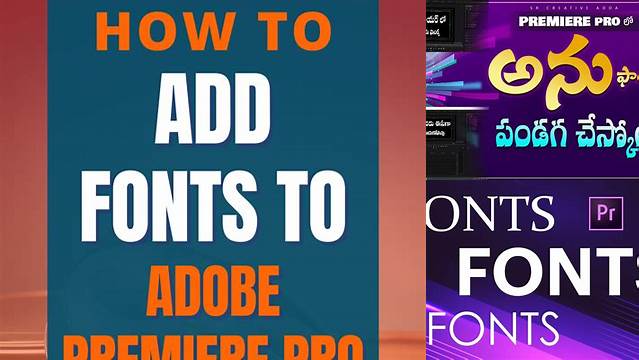
Premiere Pro Fonts: Choose The Best!
Choosing the right premiere pro fonts can dramatically elevate your video projects. Fonts are more than just text; they're a crucial element of visual storytelling, setting the tone and enhancing the overall aesthetic. In this comprehensive guide, we'll dive deep into the world of fonts for Premiere Pro, exploring everything from selecting the perfect typeface to troubleshooting common font issues. Let’s get started, guys!
1. Understanding the Importance of Font Choice in Premiere Pro
Premiere pro fonts play a pivotal role in conveying the message and setting the mood of your video. A well-chosen font can enhance readability, create visual interest, and reinforce your brand identity. Conversely, a poorly selected font can distract viewers, undermine your message, and make your video look unprofessional. Think about it – would you use Comic Sans for a serious documentary? Probably not! Different fonts evoke different emotions and associations. Serif fonts, like Times New Roman, often convey a sense of tradition and authority, while sans-serif fonts, like Arial or Helvetica, tend to feel more modern and clean. Script fonts can add a touch of elegance or playfulness, but they should be used sparingly to maintain readability. The key is to choose a font that aligns with the overall style and purpose of your video. For example, a fast-paced action sequence might benefit from a bold, dynamic font, while a heartfelt interview might call for a more subtle and understated typeface. Don't underestimate the power of typography – it's a crucial element in creating a visually compelling and engaging video.
2. Top Font Categories for Video Editing
When it comes to video editing, certain font categories tend to work better than others. Let's explore some of the most popular and effective options. First, we have serif fonts. These fonts, characterized by their small decorative strokes (serifs) at the end of each letter, often convey a sense of formality, tradition, and authority. They're a great choice for documentaries, corporate videos, or any project that requires a touch of sophistication. Next up are sans-serif fonts. These fonts, lacking the serifs, offer a cleaner, more modern look. They're highly readable and versatile, making them suitable for a wide range of video projects, from explainer videos to social media content. Script fonts, resembling handwriting, can add a touch of elegance, personality, or playfulness to your videos. However, they should be used sparingly, as they can be difficult to read in large blocks of text. Consider using them for titles, subtitles or short, impactful messages. Finally, display fonts are designed to grab attention and make a statement. These fonts often feature unique and eye-catching designs, making them ideal for titles, logos, or other prominent elements in your video. Just be careful not to overuse them, as they can be overwhelming if applied excessively.
5. Best Practices for Using Fonts in Video Projects
Using premiere pro fonts effectively requires more than just choosing a visually appealing typeface. It's essential to follow some best practices to ensure that your fonts enhance your video rather than detract from it. First and foremost, prioritize readability. Choose fonts that are easy to read, even at smaller sizes and on different screen resolutions. Avoid overly decorative or complex fonts that can strain the viewer's eyes. Consider the contrast between your font and the background. Make sure there's enough contrast to ensure that the text stands out clearly. A dark font on a light background or a light font on a dark background generally works well. Be mindful of font size. Choose a font size that's appropriate for the viewing distance and screen size. Test your video on different devices to make sure the text is legible. Use a limited number of fonts. Stick to a maximum of two or three fonts in your video to maintain a consistent and professional look. Using too many fonts can create a cluttered and distracting appearance. Pay attention to kerning and tracking. Kerning refers to the spacing between individual letters, while tracking refers to the overall spacing between all the letters in a word or phrase. Adjust these settings to improve readability and visual appeal. By following these best practices, you can ensure that your fonts contribute to a polished and professional video.
6. Pairing Fonts for Visual Harmony
Premiere pro fonts work best when they complement each other. Pairing fonts effectively can create visual harmony and enhance the overall aesthetic of your video. A common approach is to pair a serif font with a sans-serif font. For example, you might use a serif font for your titles and a sans-serif font for your body text. This combination can create a nice contrast while maintaining readability. Another option is to pair a bold font with a lighter font. This can help you create visual hierarchy and draw attention to important elements in your video. When pairing fonts, consider their personalities. Choose fonts that share similar characteristics or complement each other in terms of style and mood. Avoid pairing fonts that are too similar, as this can create a monotonous look. Experiment with different combinations to find what works best for your video. There are also numerous online resources that can help you find font pairings that work well together. By mastering the art of font pairing, you can create visually stunning and engaging videos.
7. Font Licensing and Legal Considerations
When using premiere pro fonts in your video projects, it's crucial to understand font licensing and legal considerations. Most fonts are protected by copyright, and you need to have a license to use them legally. Font licenses typically specify how you can use the font, including whether you can use it for commercial purposes, embed it in your video, or modify it. Some fonts are free for personal use but require a commercial license for business projects. Others are open-source, meaning you can use them freely for any purpose, as long as you adhere to the terms of the open-source license. Before using a font in your video, carefully review the license agreement to ensure that you're complying with the terms. If you're unsure about the licensing terms, it's always best to err on the side of caution and contact the font designer or foundry for clarification. Using fonts without a proper license can lead to legal issues, so it's essential to be diligent and responsible in your font choices.
8. Troubleshooting Common Font Issues in Premiere Pro
Even with the best preparation, you might encounter font issues in Premiere Pro. Here are some common problems and how to solve them. First, missing fonts. If Premiere Pro displays a message that a font is missing, it means the font is not installed on your system. To fix this, simply install the missing font. If you're using a shared project, make sure all the necessary fonts are installed on your computer. Second, font rendering problems. Sometimes, fonts may not render correctly in Premiere Pro, appearing distorted or pixelated. This can be caused by font corruption or compatibility issues. Try clearing your Premiere Pro cache or updating your graphics drivers. Third, font conflicts. If you have multiple versions of the same font installed, it can cause conflicts and lead to unexpected behavior. Try removing any duplicate fonts or using a font management program to resolve conflicts. Fourth, font size issues. If your font appears too small or too large, adjust the font size in the Essential Graphics panel. Make sure the font size is appropriate for the viewing distance and screen size. By troubleshooting these common font issues, you can ensure a smooth and seamless video editing experience.